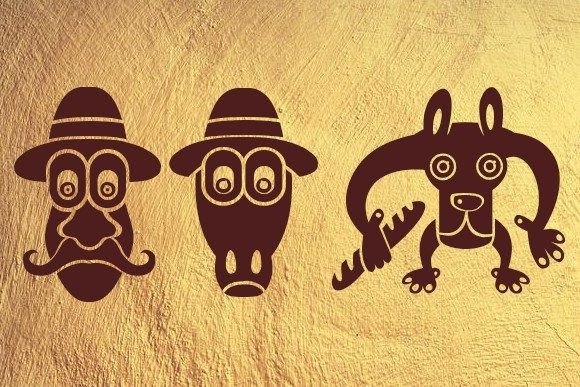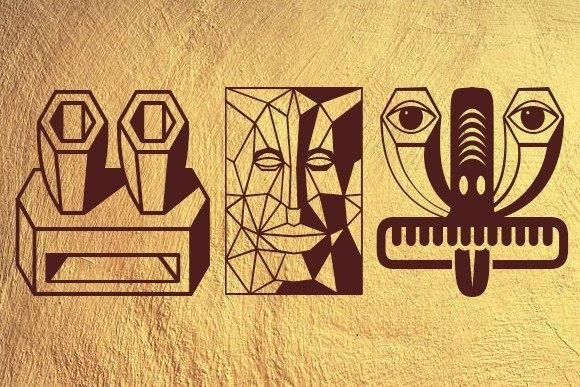
Atradimas Font: Elevate Your Designs with this Stunning Dingbat Font
Are you tired of using the same old fonts in your designs? Look no further! Atradimas Font is here to take your projects to the next level. This awesome dingbat font is perfect for designers and crafters who want to add a touch of uniqueness to their work. In this article, we’ll dive into the features and benefits of Atradimas Font, and explore how you can use it to create stunning designs.
What is Atradimas Font?
Atradimas Font is a dingbat font that is designed to add a decorative touch to your projects. Dingbat fonts are a type of font that uses symbols, icons, and glyphs instead of traditional letters and numbers. Atradimas Font is a carefully crafted collection of icons and symbols that can be used to add visual interest to your designs.
Key Features of Atradimas Font
- Unique and decorative: Atradimas Font is a one-of-a-kind dingbat font that will add a touch of elegance to your designs.
- High-quality design: The font is carefully crafted with attention to detail, ensuring that it looks stunning in any design.
- Versatile: Atradimas Font can be used on a variety of projects, including banners, postcards, flyers, and more.
How to Use Atradimas Font
Atradimas Font is perfect for a variety of projects, including:
- Banners: Use Atradimas Font to create eye-catching banners that will grab attention.
- Postcards: Add a touch of elegance to your postcards with Atradimas Font.
- Flyers: Use Atradimas Font to create stunning flyers that will stand out from the crowd.
- Social media graphics: Atradimas Font is perfect for creating social media graphics that will help you stand out.
Benefits of Using Atradimas Font
Using Atradimas Font in your designs can have a number of benefits, including:
- Increased visual interest: Atradimas Font adds a touch of elegance and sophistication to your designs.
- Improved brand recognition: Using a unique font like Atradimas Font can help you establish a strong brand identity.
- Enhanced creativity: Atradimas Font provides a wide range of design possibilities, allowing you to think outside the box and try new things.
Tips for Getting the Most Out of Atradimas Font
Here are a few tips for getting the most out of Atradimas Font:
- Experiment with different colors: Atradimas Font looks stunning in a variety of colors, so don’t be afraid to try out different options.
- Use it in combination with other fonts: Atradimas Font pairs well with a variety of other fonts, so try using it in combination with other fonts to create a unique look.
- Play with different sizes: Atradimas Font looks great in a variety of sizes, so experiment with different sizes to find the one that works best for your design.
Atradimas Font is a powerful tool for designers and crafters who want to take their projects to the next level. With its unique and decorative design, high-quality craftsmanship, and versatility, Atradimas Font is perfect for a wide range of projects. By following the tips outlined in this article, you can get the most out of Atradimas Font and create stunning designs that will leave a lasting impression.